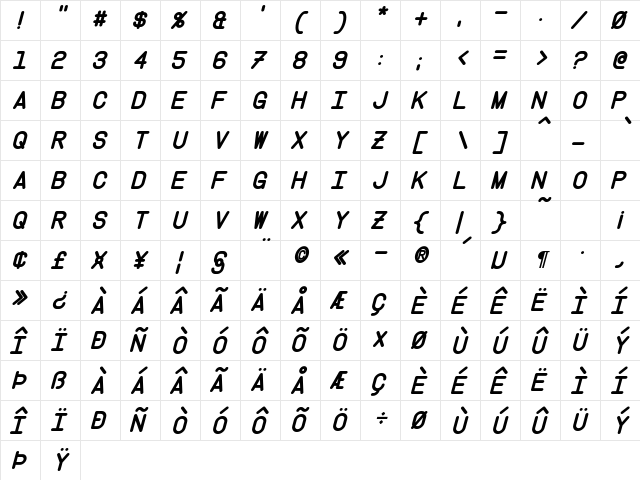
Instruction Bold Italic
Bold Italic · Pixel Sagas Neale Davidson ·
Design Context for Instruction Typeface
Instruction takes a measured approach to typography — its balanced proportions and neutral character make it a reliable workhorse for both digital and print work. The dynamic lean of this cut emphasises speed and emphasis in any layout. Its bold stroke weight gives it real presence on the page.
Pro Tip: Try Instruction for annotation and caption copy alongside an upright companion — the contrast in angle creates a dynamic but ordered typographic system.